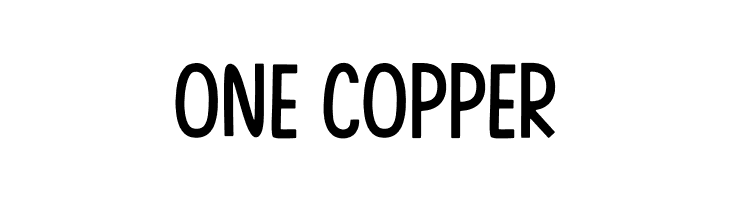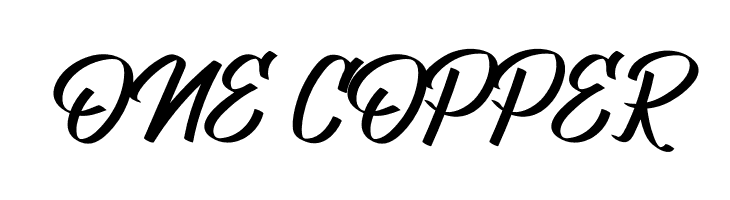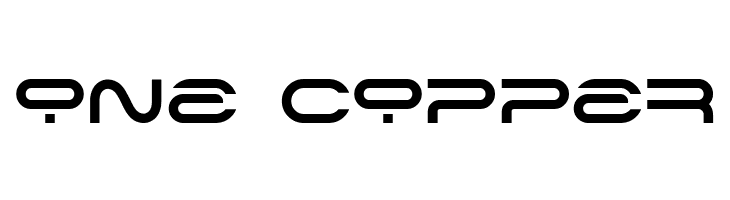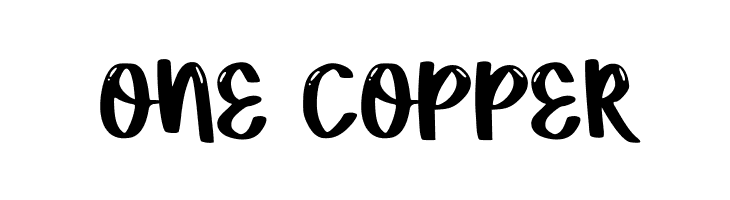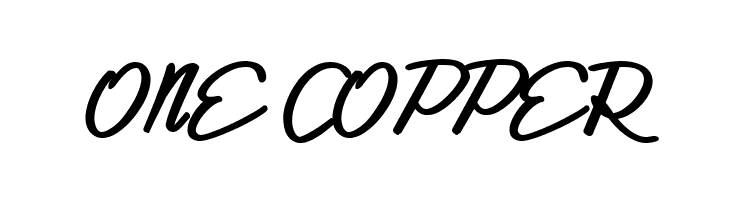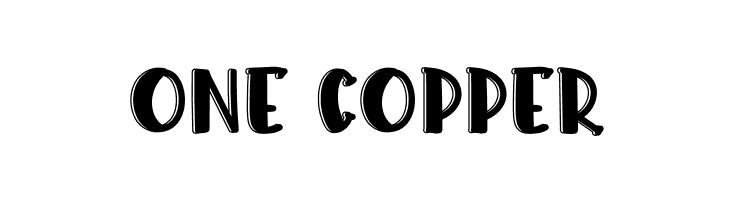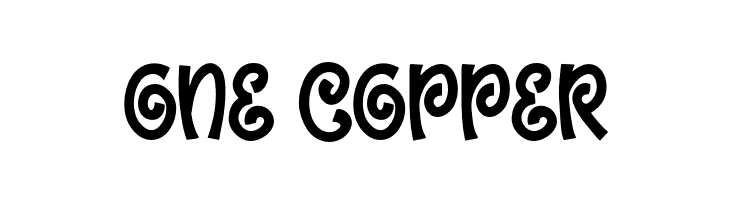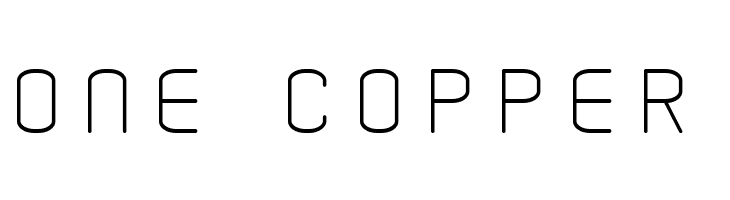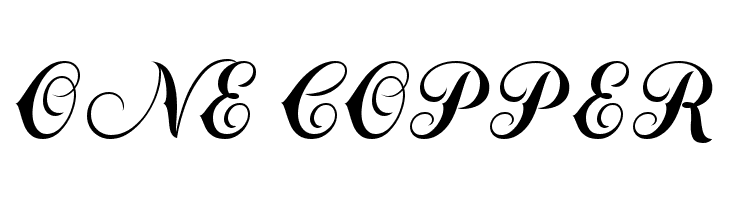
• Almost Sanskrit Taj Light
A geometric and decorative font inspired by traditional Sanskrit script with modern elements.
• Almost Sanskrit Taj New
A bold, geometric font with a modern and elegant style.
• Almost Serious
A modern, geometric font with clean lines and a bold appearance.
• Almost Serious Accent
A modern, geometric font with clean lines and uniform stroke width.
• Almost_there
• AlmostDead
A lively, cursive handwritten font with fluid, connected strokes.
• AlmostDeadBloody
A dripping, cursive font with a bold, artistic style.
• AlmostInfinity
A playful, circle-based decorative font with a whimsical and artistic style.
• AlmostThai
A playful, decorative font with bold, swirling elements and a whimsical style.
• AlmostThere
A playful and elegant script font with flowing curves and a handwritten style.
• AlmostThere
A playful and elegant script font with decorative loops and a hand-drawn aesthetic.
• Almour!
A dynamic, brush-style font with sharp, angular strokes and a handcrafted feel.
• Alodega FREE
A playful, energetic script font with bold, flowing cursive letters.
• Aloen
An elegant serif font with decorative flourishes and classic elements.
• Aloha
• Aloha 1
A lively and elegant script font with flowing, cursive letterforms.
• Aloha 1
A playful, hand-drawn font with varied stroke thickness and a whimsical style.
• Aloha Beach
A playful, bold font with rounded, bubbly forms perfect for retro-themed designs.
• Aloha Dance Regular
A playful, bold font with curvy, whimsical letterforms.
• Aloha Lover
A playful, hand-drawn font with bold, rounded characters.
• Aloha Luna
• Aloha March
A playful, handwritten script font with a whimsical and friendly style.